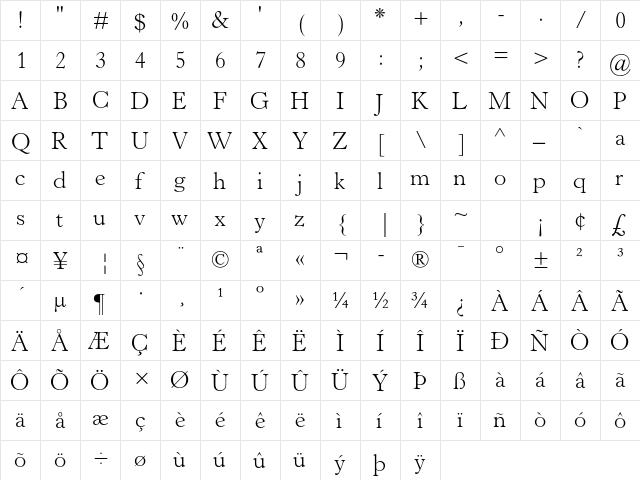
Horley Old Style MT Std Light
Design Context for Horley Old Style MT Std Typeface
Horley Old Style MT Std takes a measured approach to typography — its balanced proportions and neutral character make it a reliable workhorse for both digital and print work. The delicate stroke weight brings airiness and refinement to layouts.
Pro Tip: Use Horley Old Style MT Std in both headline and body roles to test its range before committing to a single application.